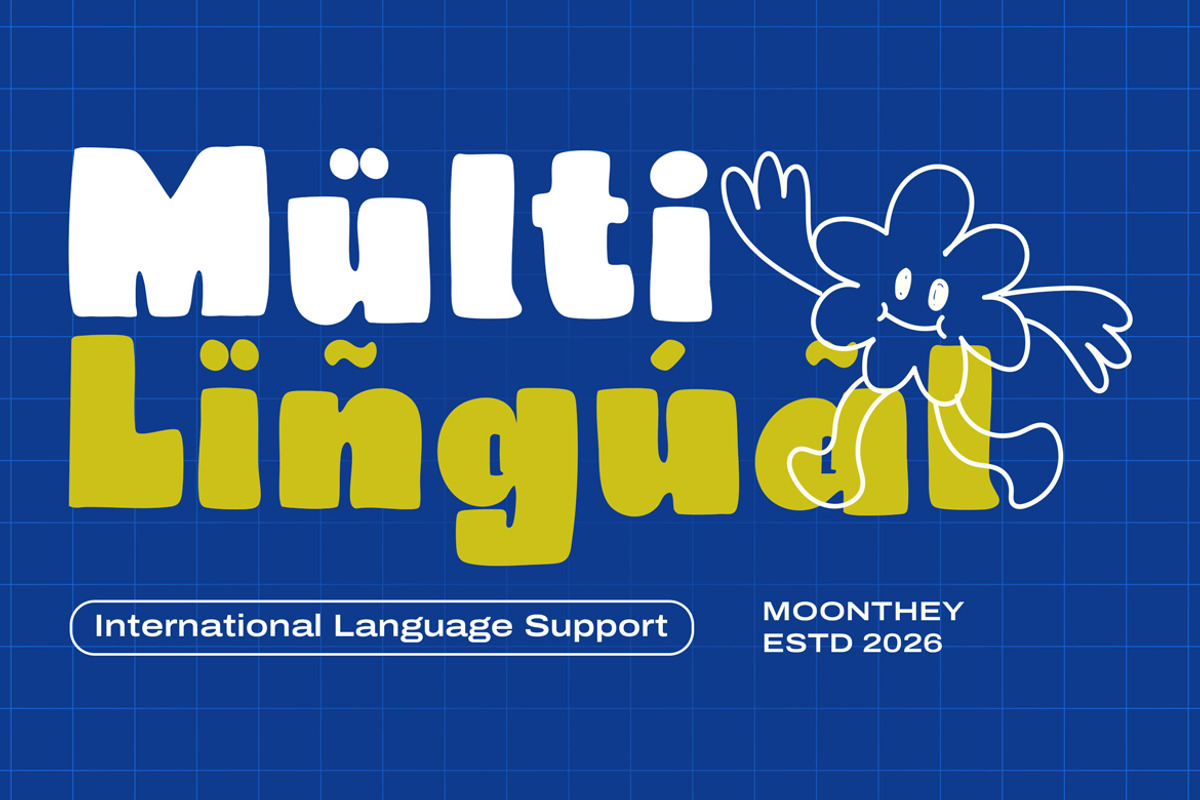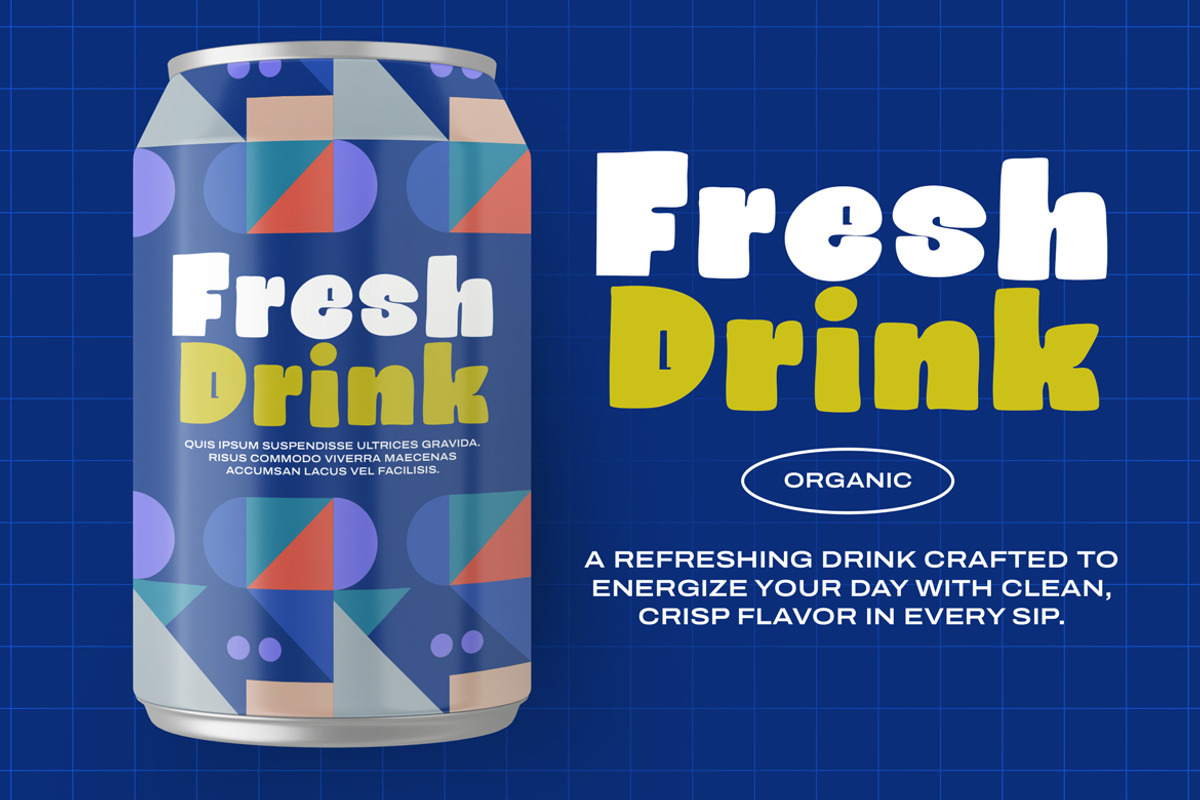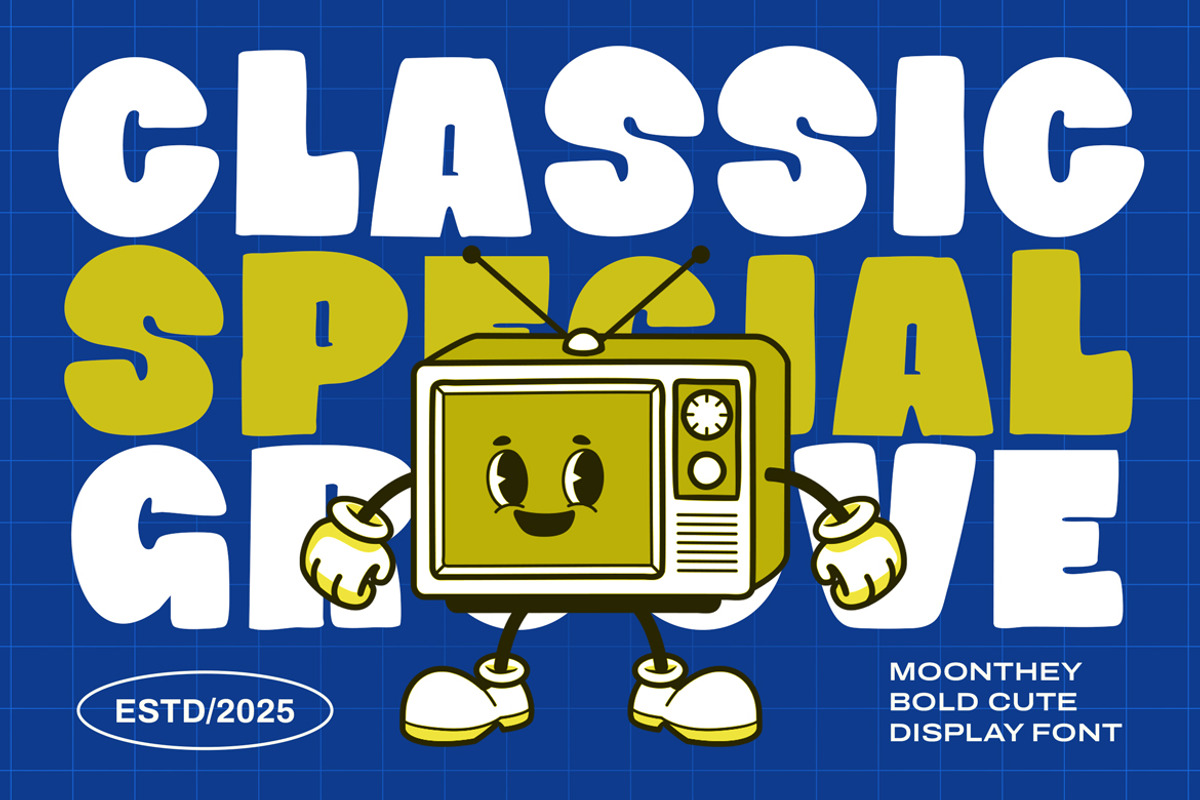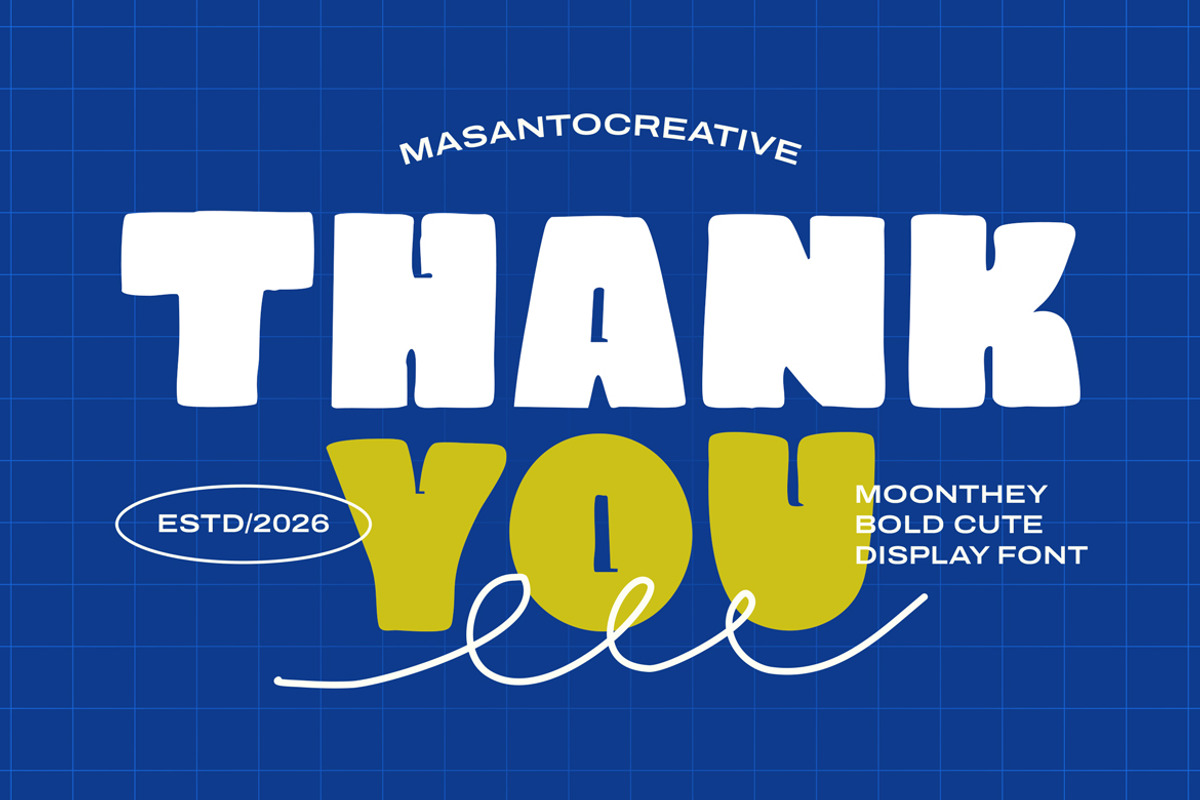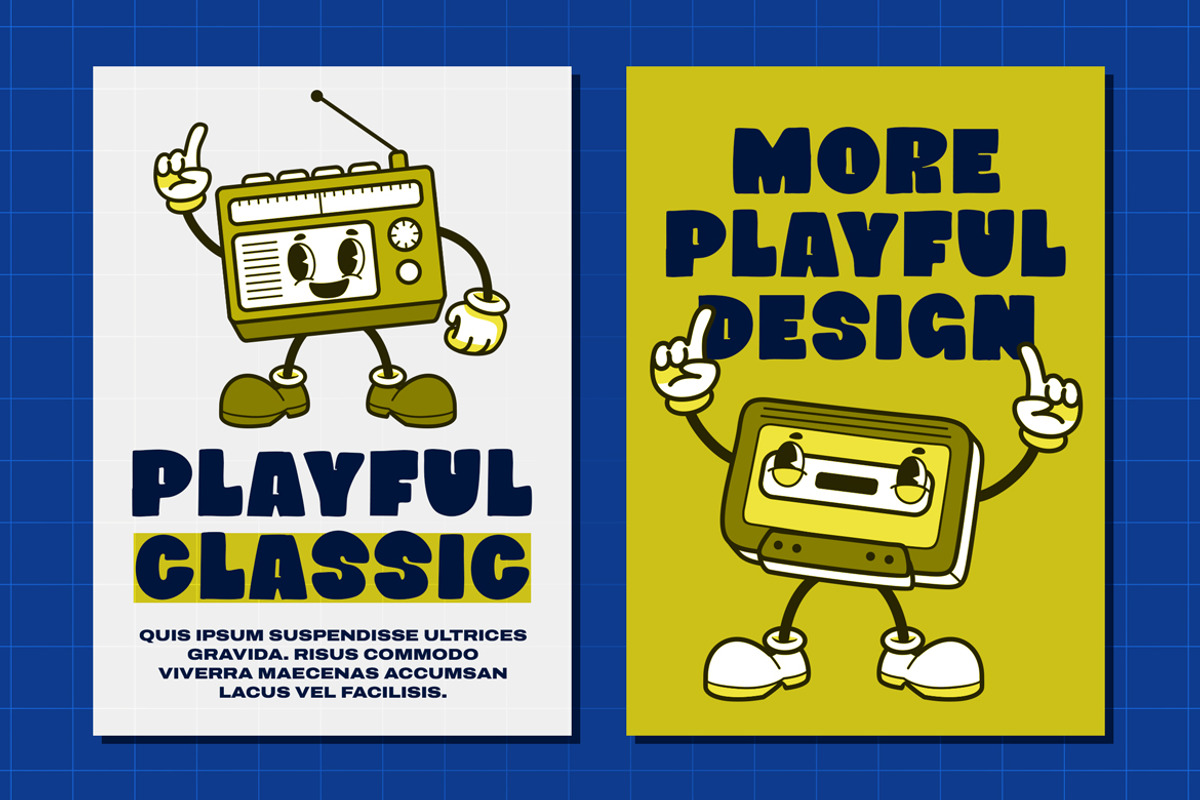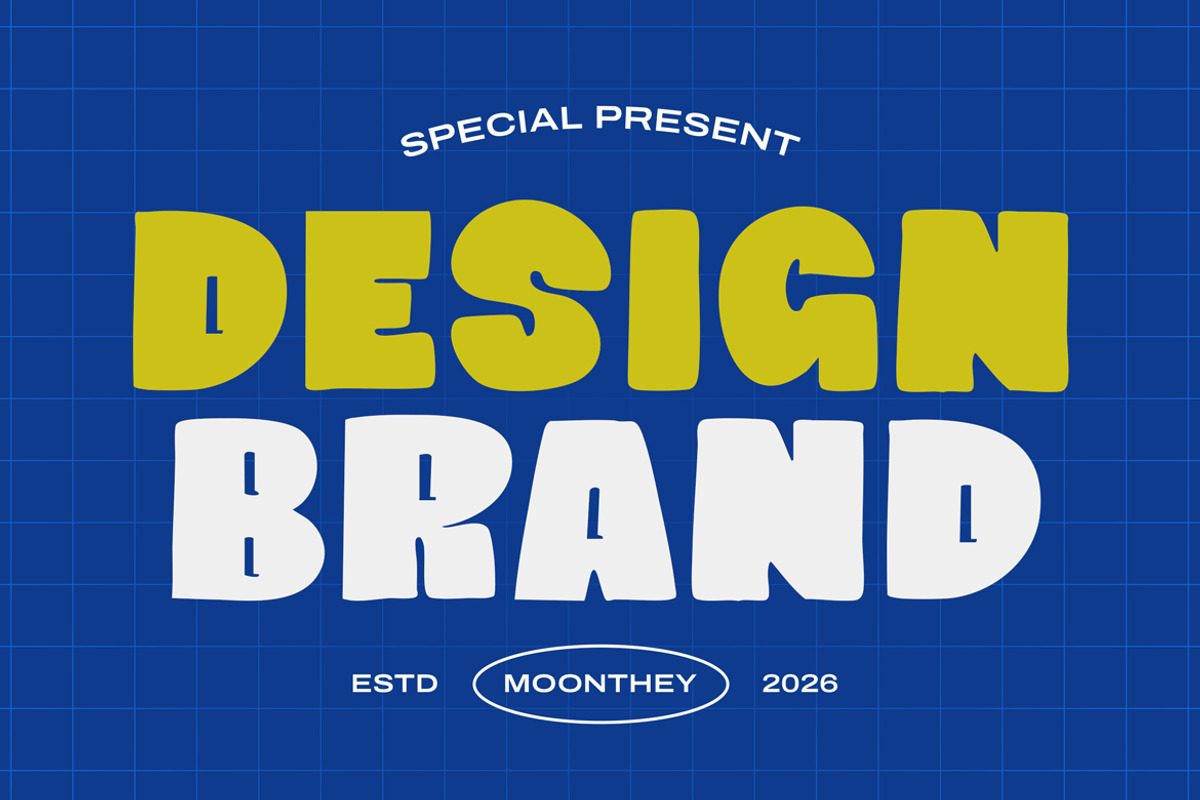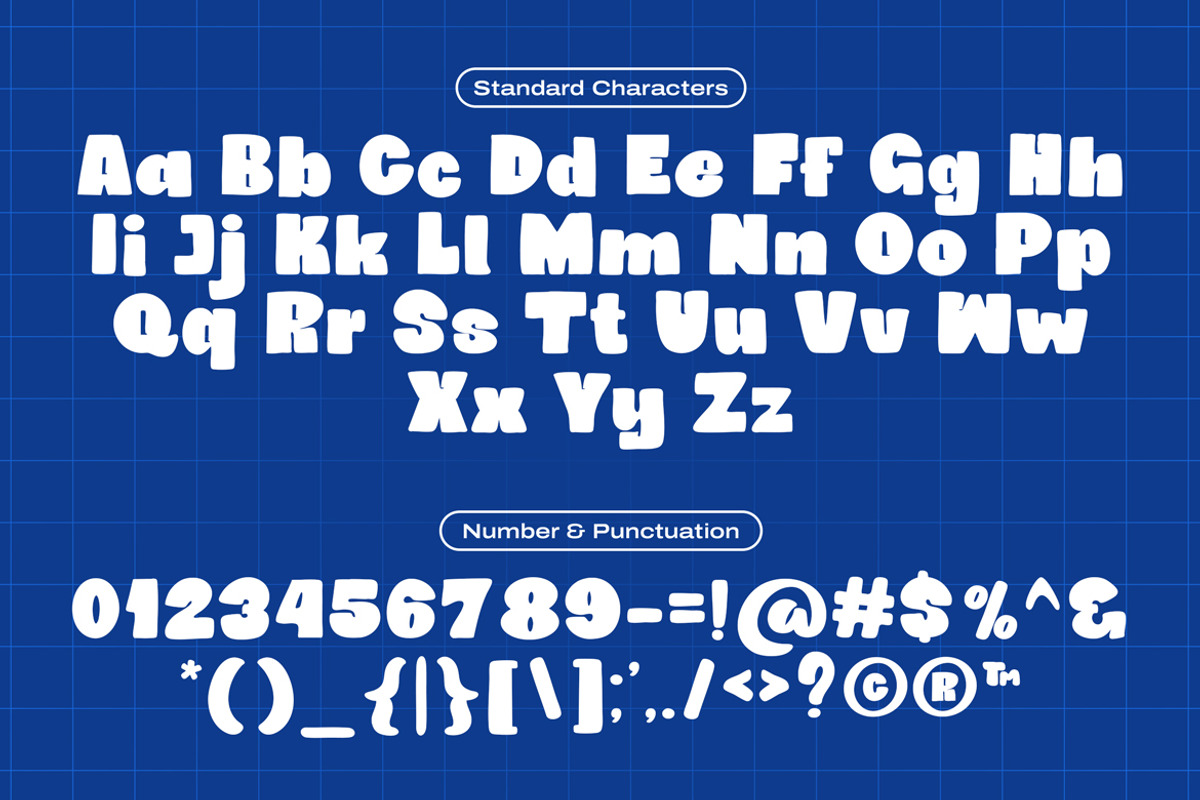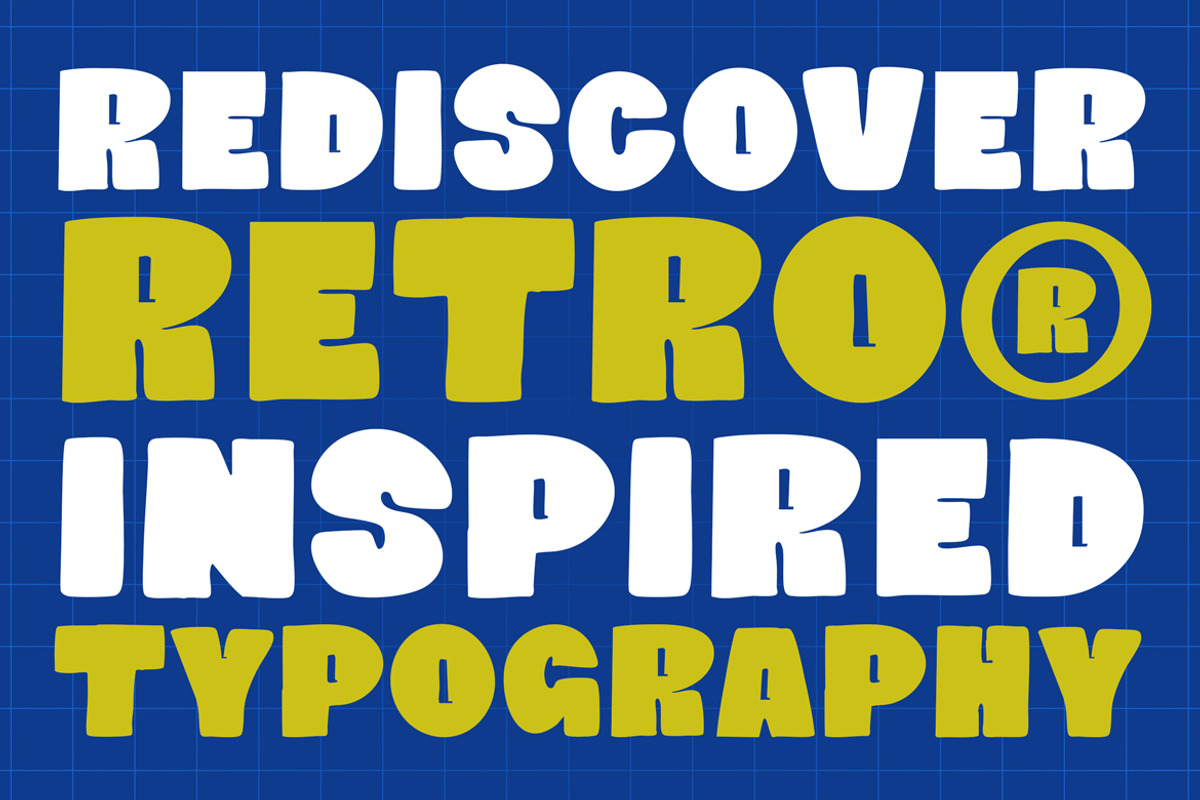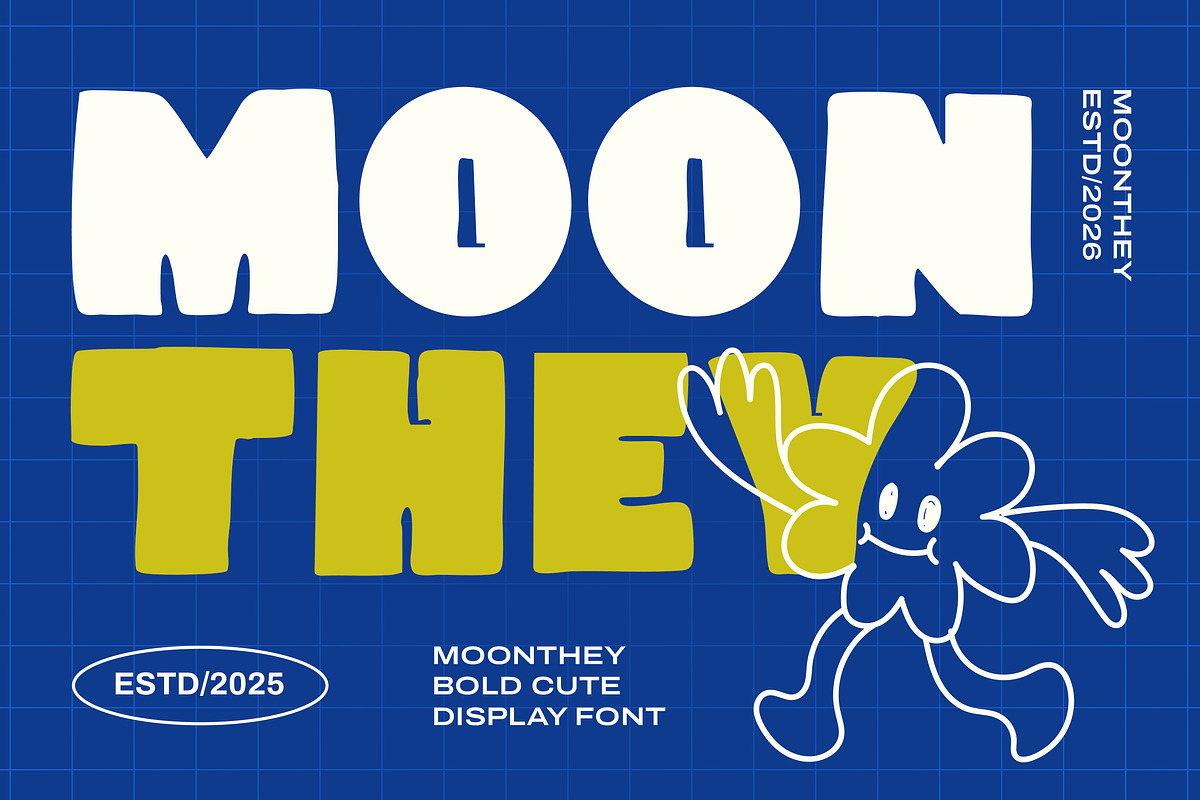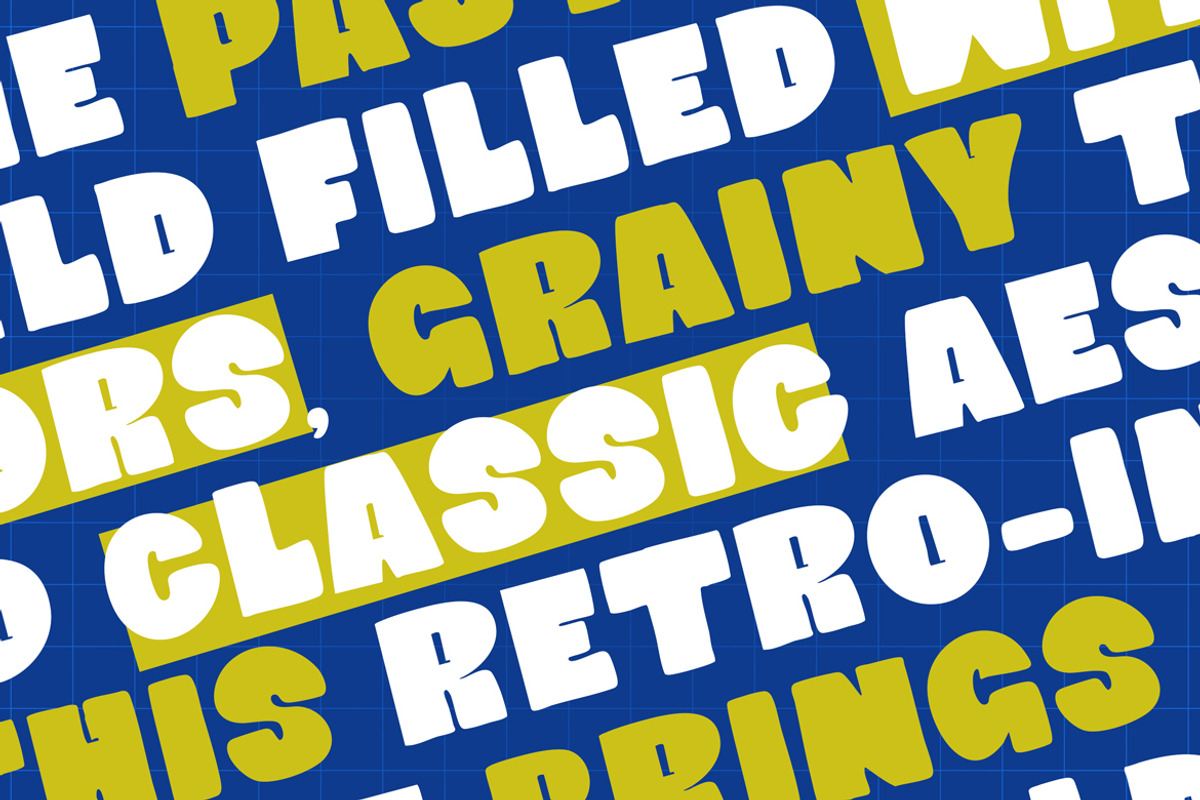
Moonthey – Bold Cute Retro Display F
Moonthey is a bold cute retro display font crafted to bring a fun, nostalgic, and character-filled aesthetic to your designs. Inspired by classic cartoon lettering and vintage pop visuals, Moonthey delivers a chunky, rounded, and highly expressive style perfect for playful branding. Its soft handcrafted shapes and bouncy proportions make it ideal for packaging, kids’ products, retro-inspired branding, posters, merchandise, and creative advertising. With complete characters, multilingual support, and smooth readability, Moonthey is a versatile display font that instantly adds charm and personality. Whether you're designing for food & drink labels, cute mascots, colorful layouts, or bold titles, Moonthey brings a joyful retro feel to every project.
- Bold, cute, retro display style
- Retro branding
- Kids & playful design
- Food & beverage packaging
- Cartoon-inspired posters
- Cute mascot illustration
- Social media graphics
- Merch & apparel prints
Add a cheerful, chunky, and nostalgic touch to your next creative project with Moonthey.